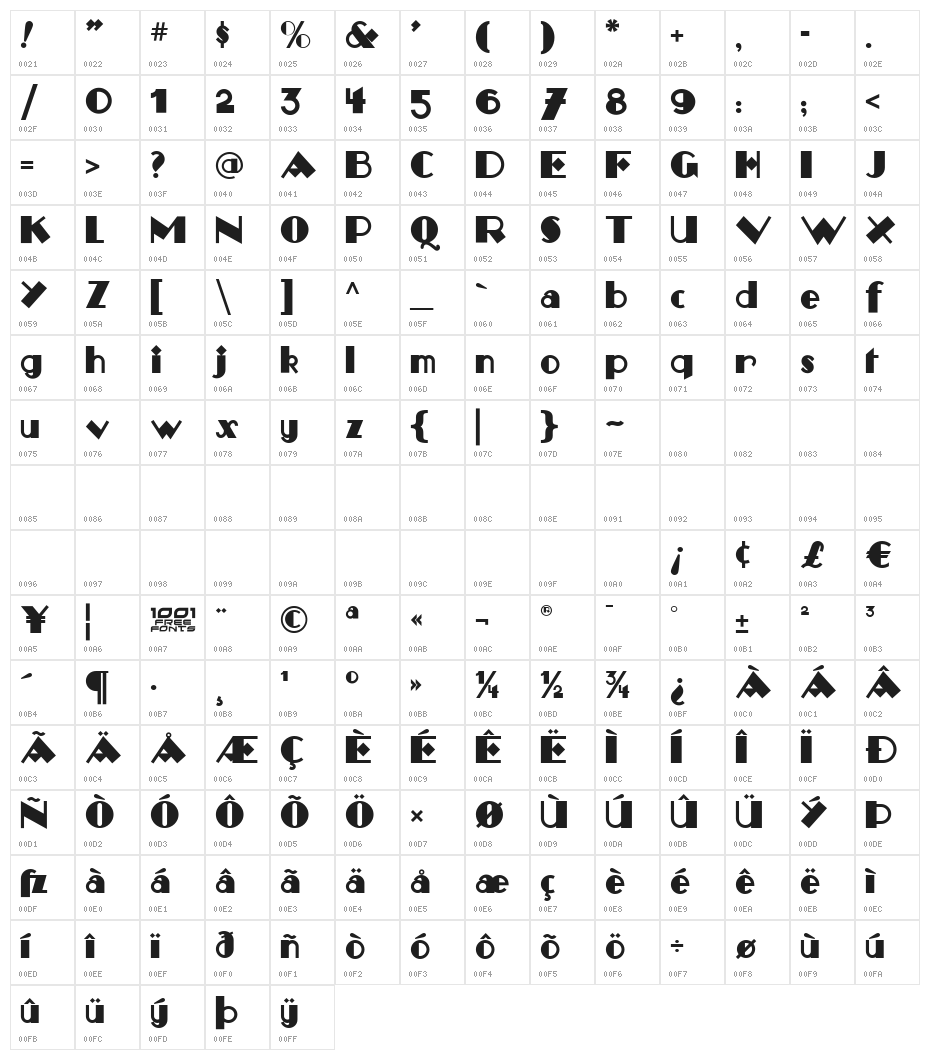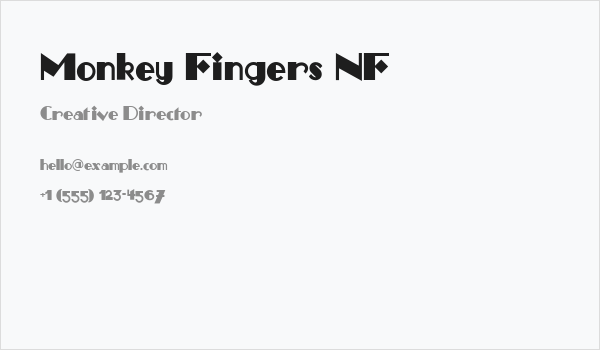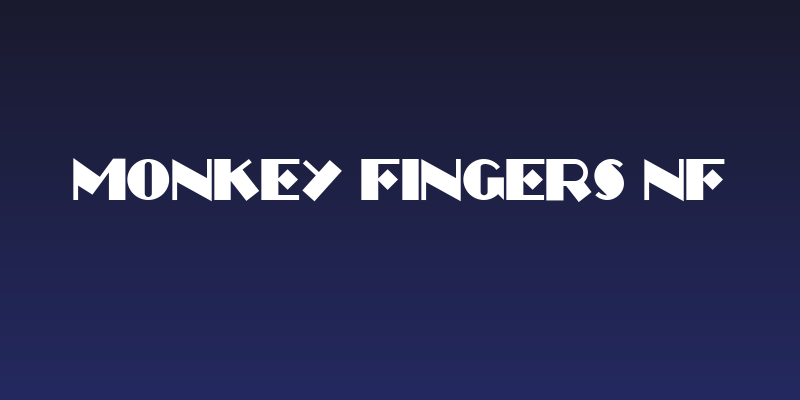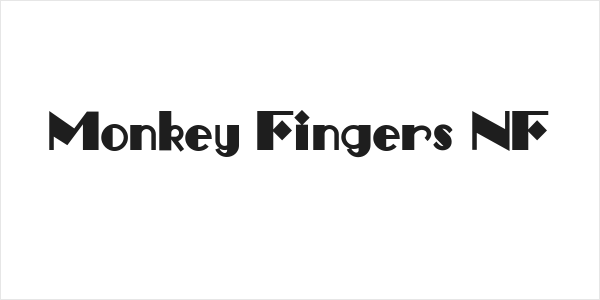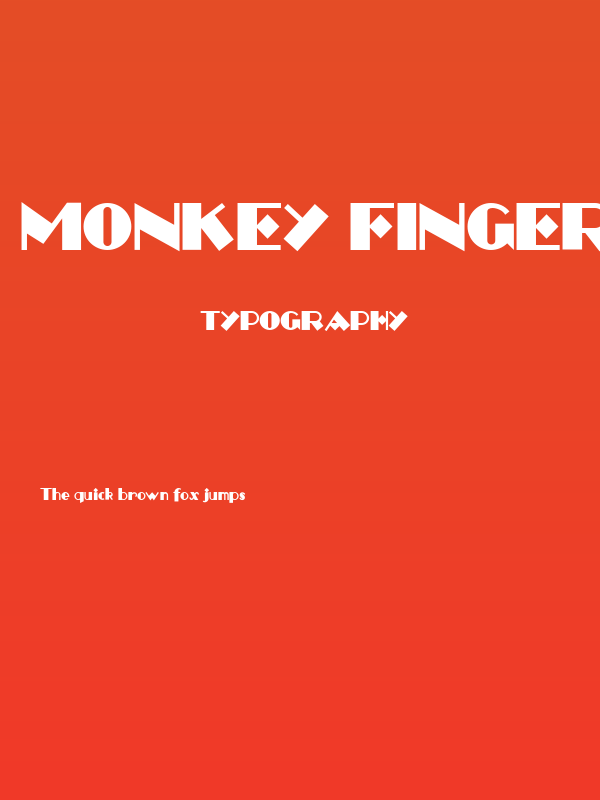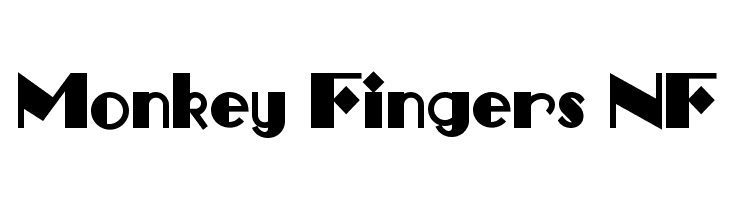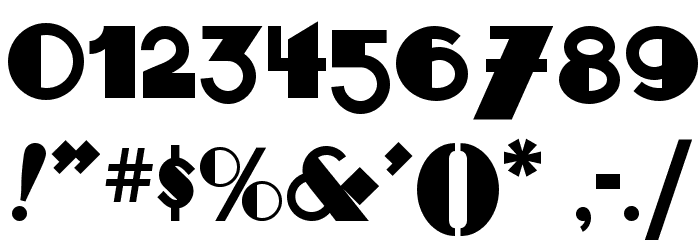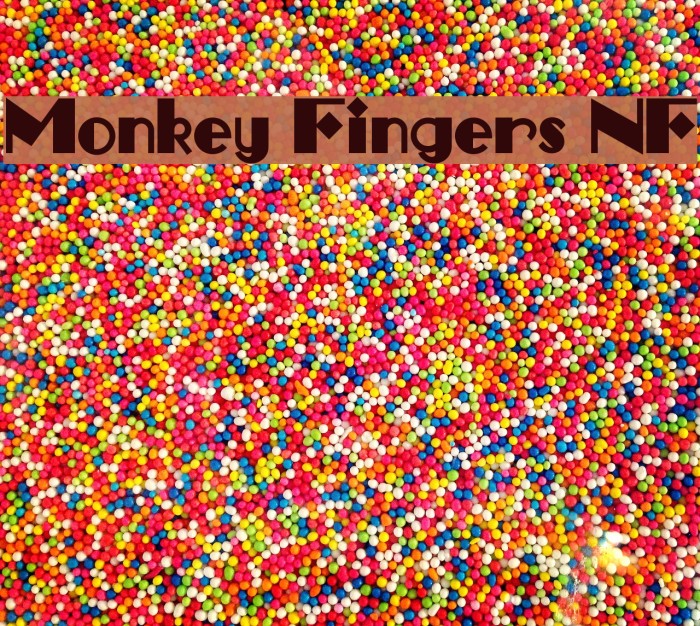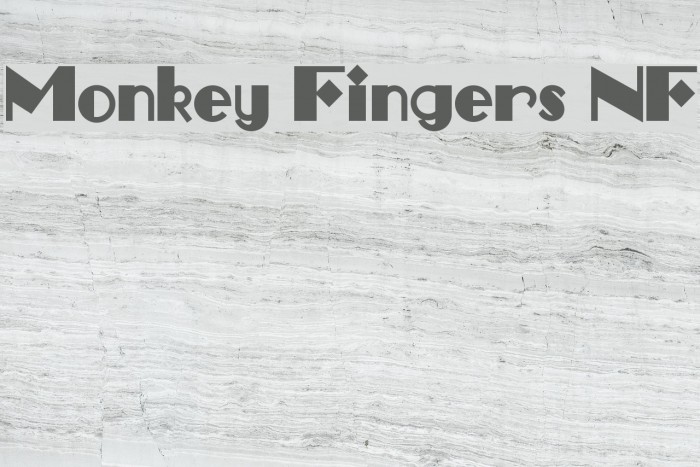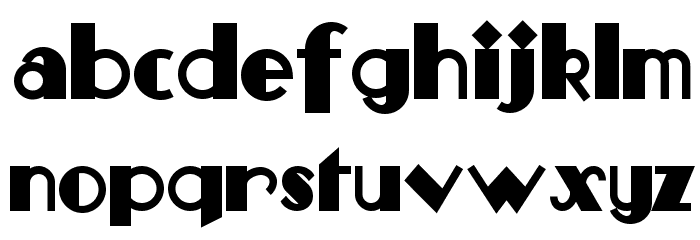
Monkey Fingers NF Font
Monkey Fingers NF Description
This font features a bold and geometric design with a playful and artistic flair. The uppercase letters are characterized by sharp angles and unique cutouts, creating a dynamic and eye-catching appearance. The lowercase letters maintain a consistent style, with rounded elements that contrast the angular nature of the uppercase. Numbers and special characters follow the same geometric theme, providing a cohesive look across all characters. This font's distinct style makes it suitable for creative and modern design projects.
| Proposed Projects | Ideal for posters, branding, album covers, and any project requiring a modern, artistic touch. |